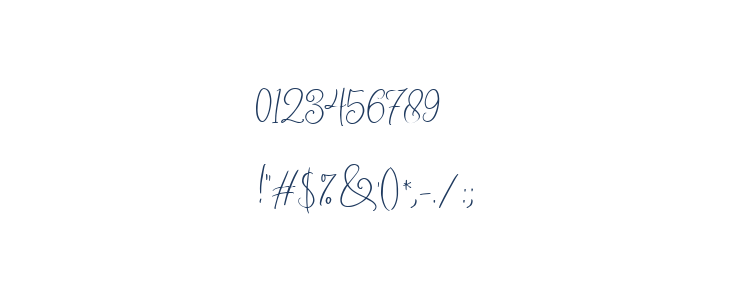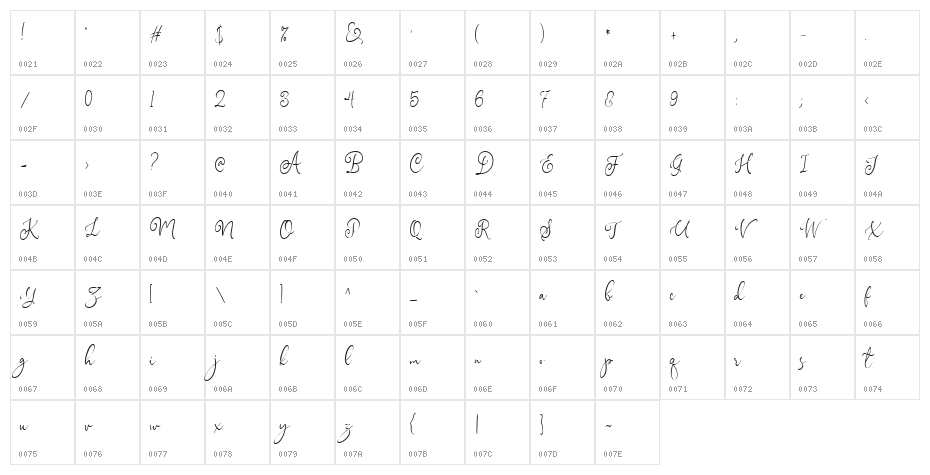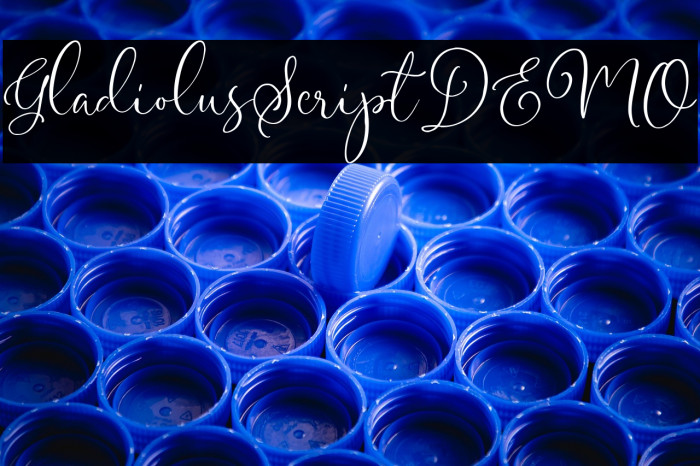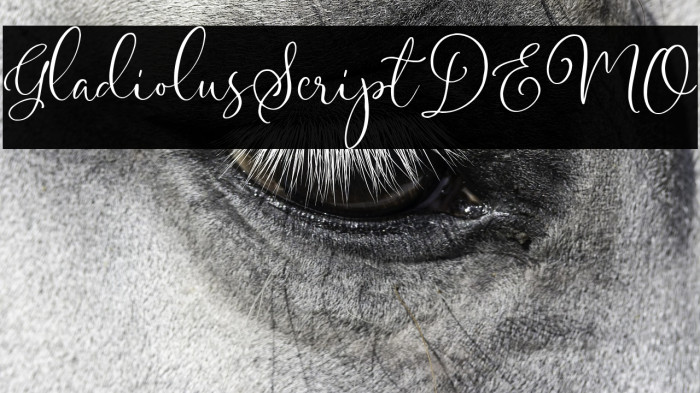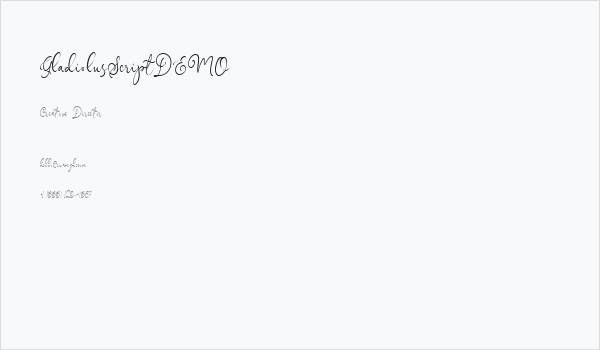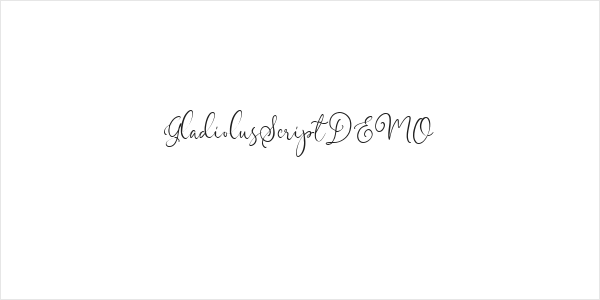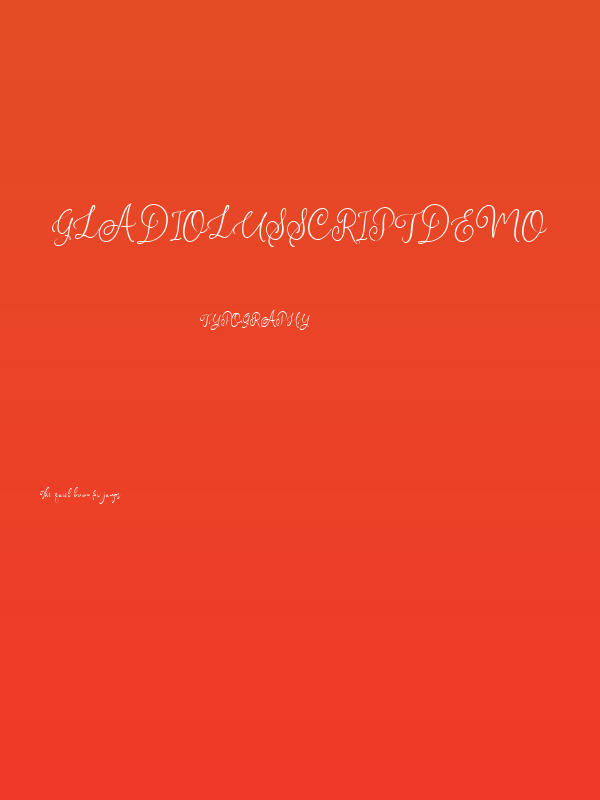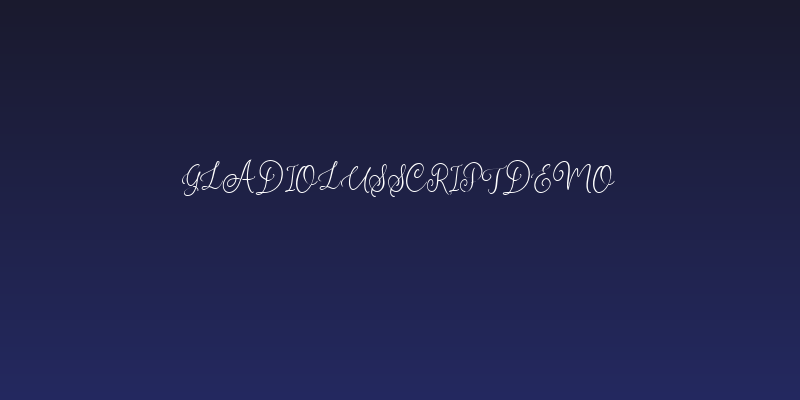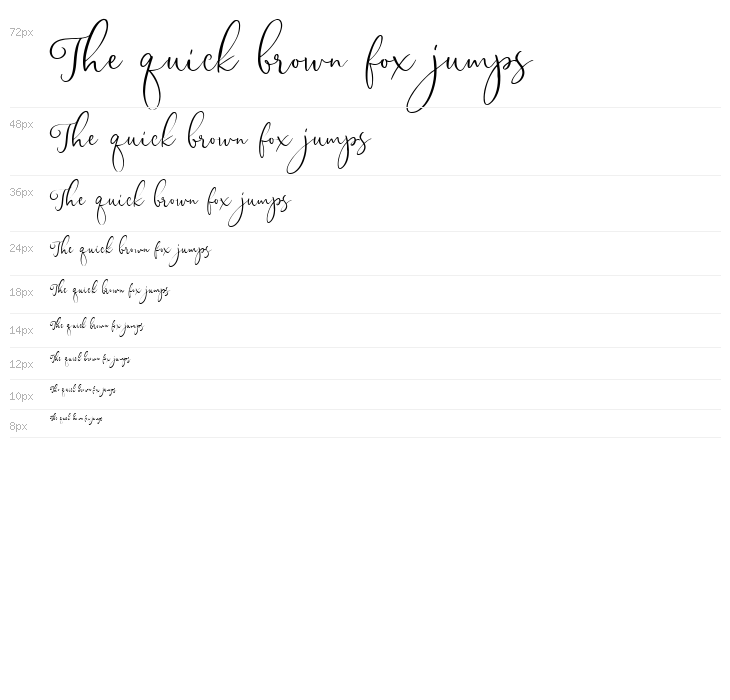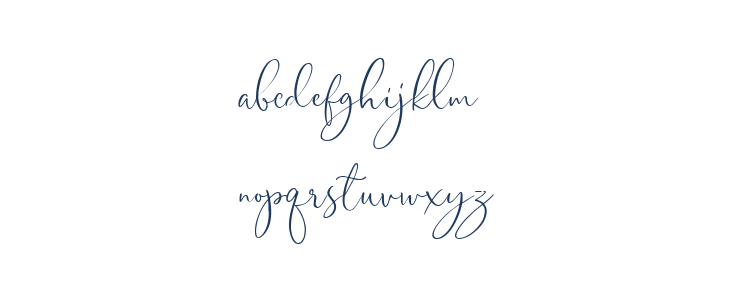
GladiolusScriptDEMO Font
GladiolusScriptDEMO Description
This elegant script font features a flowing, cursive style with intricate loops and flourishes that give it a sophisticated and artistic appearance. The uppercase letters are particularly ornate, with sweeping lines that extend beyond the baseline and cap height, creating a sense of movement and grace. The lowercase letters maintain a consistent style, with smooth connections between characters that enhance readability while preserving the decorative nature of the font. The numerals are designed to match the overall aesthetic, featuring similar curves and embellishments. Special characters are included, each crafted with the same attention to detail, making this font versatile for various design needs. The overall impression is one of elegance and refinement, suitable for projects that require a touch of class and sophistication.
| Use Case | Headlines, Invitations, Branding |
| Proposed Projects | Ideal for wedding invitations, elegant branding, greeting cards, and luxury product packaging. |